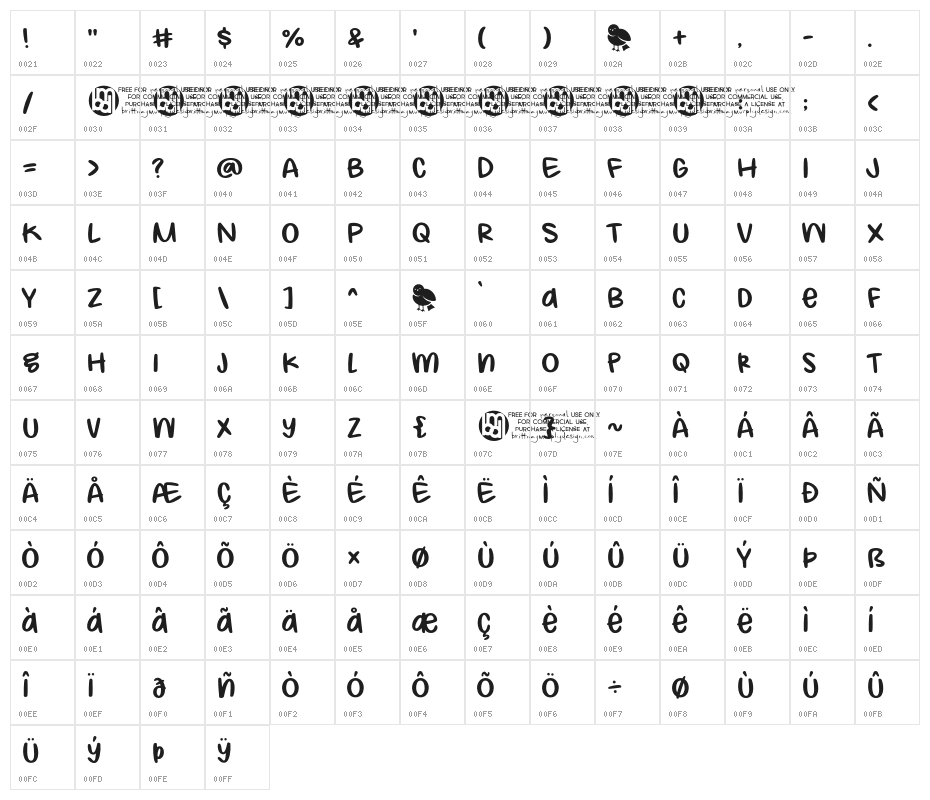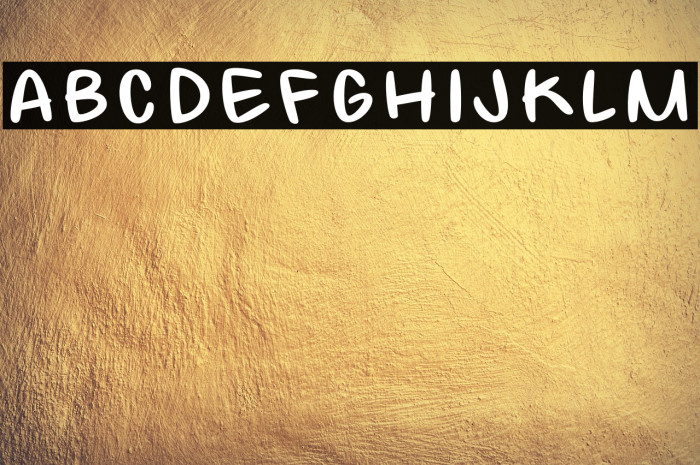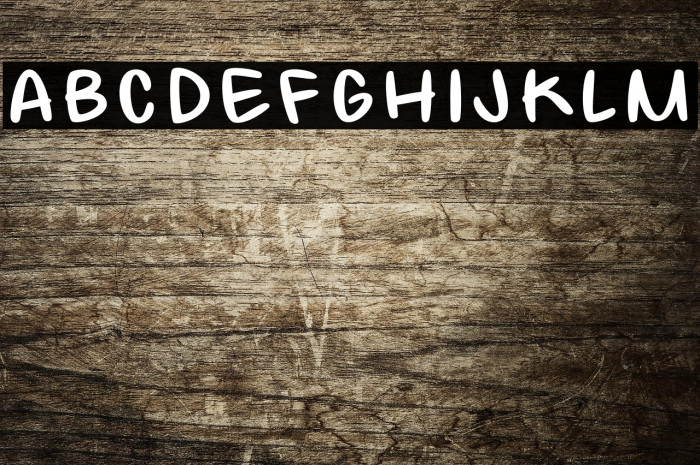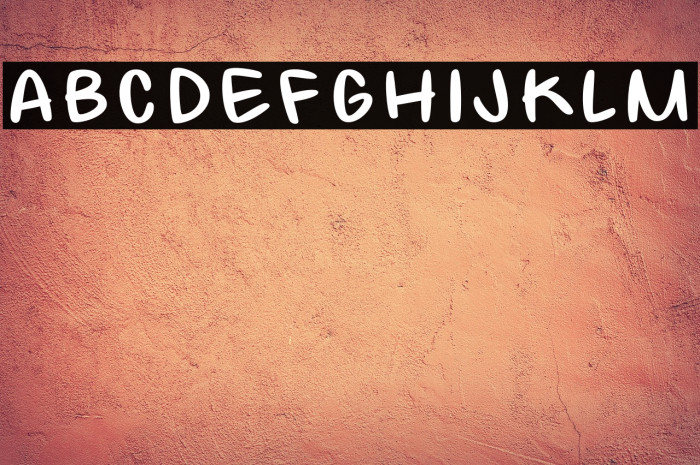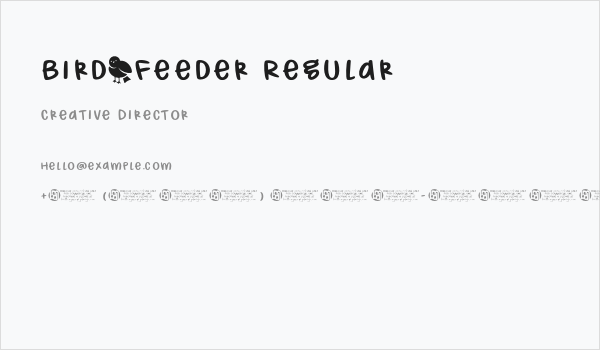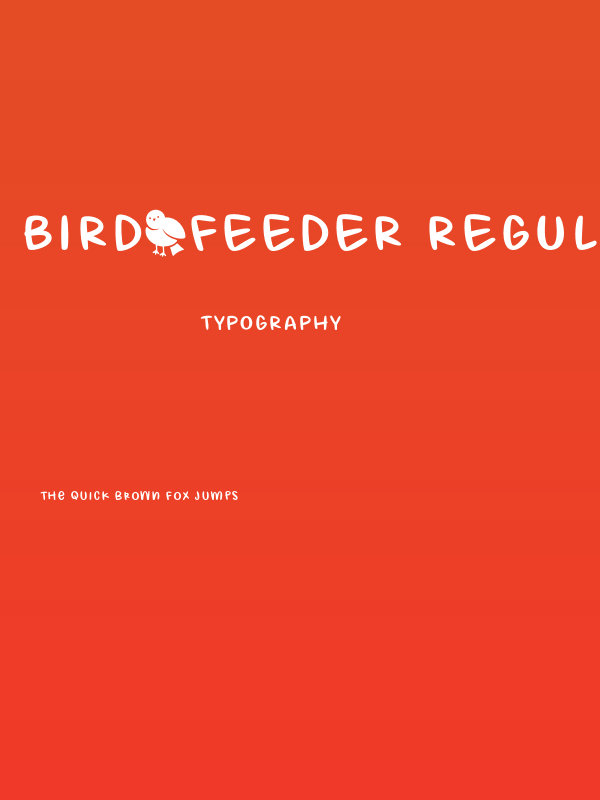
Bird_Feeder Regular Font
Bird_Feeder Regular Description
This playful and whimsical font features rounded, bold characters with a hand-drawn aesthetic. The letters have a casual, friendly appearance, making them ideal for projects that require a touch of personality and approachability. The strokes are consistent in thickness, contributing to a cohesive look across all characters. The font includes both uppercase and lowercase letters, numerals, and a selection of special characters. Its informal style is perfect for creative projects, children's materials, or any design that benefits from a lighthearted and fun vibe.
| Proposed Projects | Ideal for children's books, playful branding, greeting cards, and creative posters. |